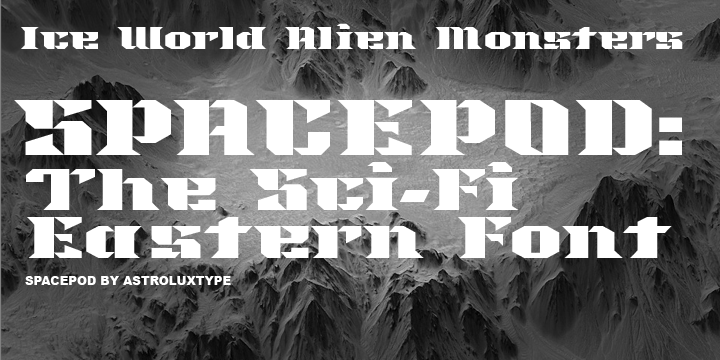
Astroluxtype’s Spacepod is a headline display font set. The font contains uppercase and lowercase letterforms with a minimum glyph set. The style suggests weird sci fi from the 1970’s or the far future... you decide? Is this the font for your sci fi western book cover title with a nod to The Matrix in the story or a poster for the movie remake of Westworld? Wherever your ship takes you in the universe Spacepod should be the letterforms on the side of your craft that states, “No rides for damn dirty apes!”
Spacepod